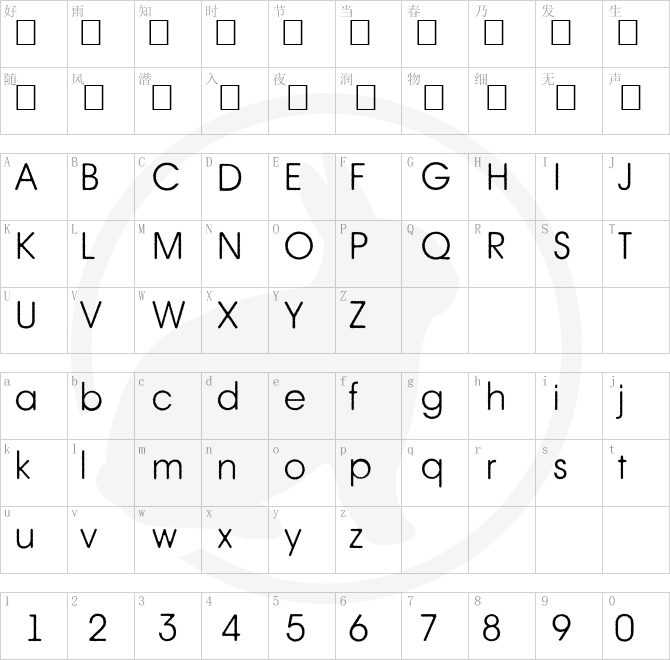
- Font Name:a_AvanteRough
a_AvanteRough-Light.ttf is a very beautiful artistic font, a_AvanteRough-Light.ttf is widely used in the design and printing of various books and pictures,a_AvanteRough-Light.ttf has a strong visual impact,a_AvanteRough-Light.ttf is a commonly used font in newspapers, magazines and books, and is used in posters, e-commerce Poster design, store design, logo design, font design and other fields.a_AvanteRough-Light.